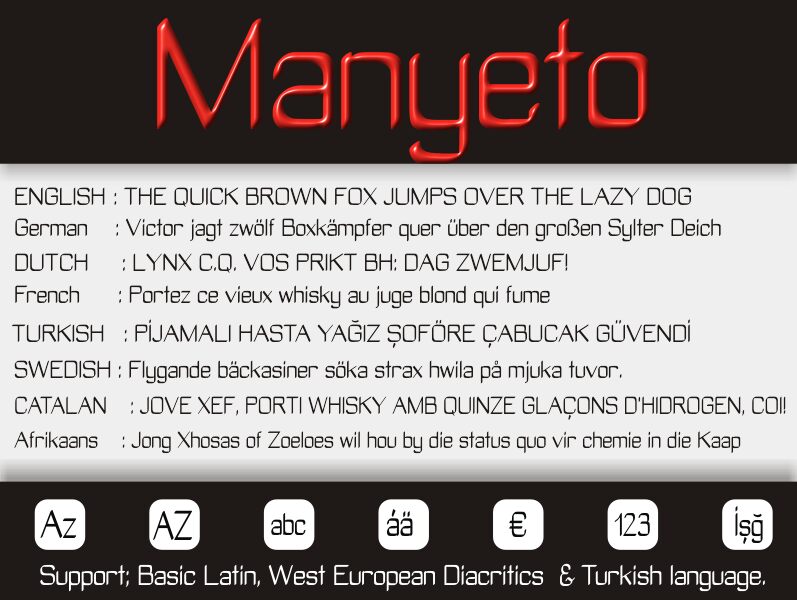
Manyeto, a captivating sans-serif font crafted by the renowned designer Mehmet Abaci of Studio Typo, commands attention with its bold, futuristic aesthetic. The font's unique letterforms exude a sense of technological prowess, seamlessly blending geometric shapes and sharp angles to create a striking visual impact. Manyeto's clean lines and minimalist design evoke a sense of modernity and sophistication, making it an alluring choice for a wide range of applications.
This versatile font lends itself well to various design contexts, from sleek branding and packaging to impactful digital interfaces and eye-catching headlines. Its strong, distinctive character makes Manyeto an excellent choice for projects that demand a bold, technologically-inspired visual language, allowing designers to create memorable and visually engaging experiences.